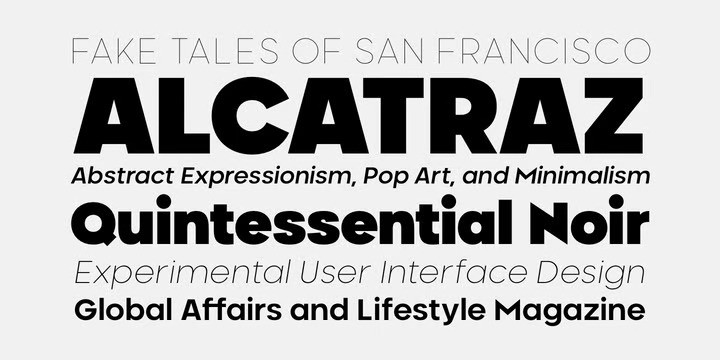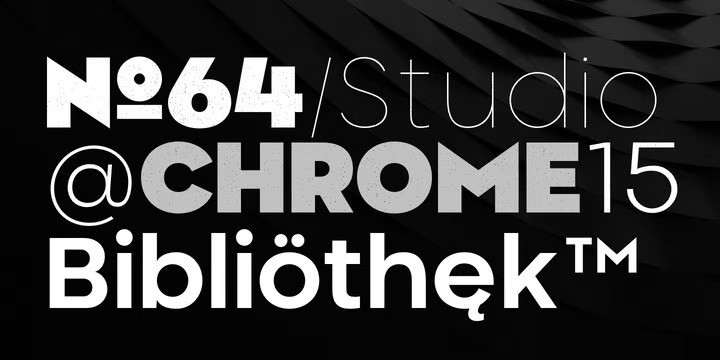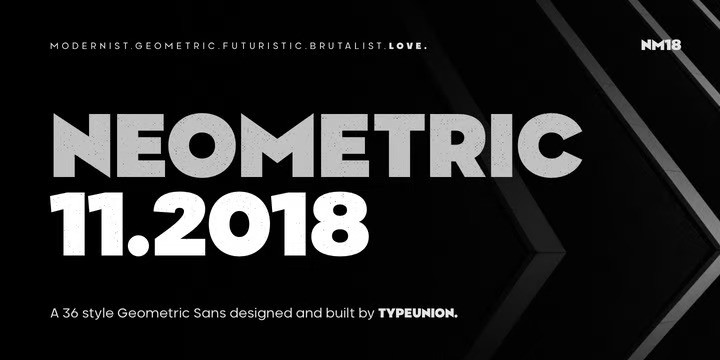
Neometric Font Family
Neometric Sans Serif Font is a geometric grotesque sans serif typeface that was created to connect that. The standard version features sharp apex tops on the N & M characters creating a unique and powerful look that would be the perfect font for branding, digital or offline treatments. Neometric features extensive European language support as well as basic Cyrillic to add to the flexibility and useability for big brands and small companies alike. The font is made up of 36 styles, including two subtle design variations each featuring 9 weights plus matching italics.